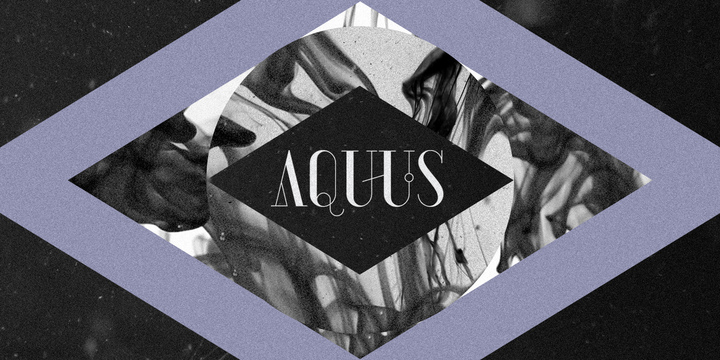
Aquus is a font created by Roland Hormann, Felix Auer and published by phospho that combines the elegance of a classic Didone with experimental interventions. Use this font on logotype, packaging or magazine titles.